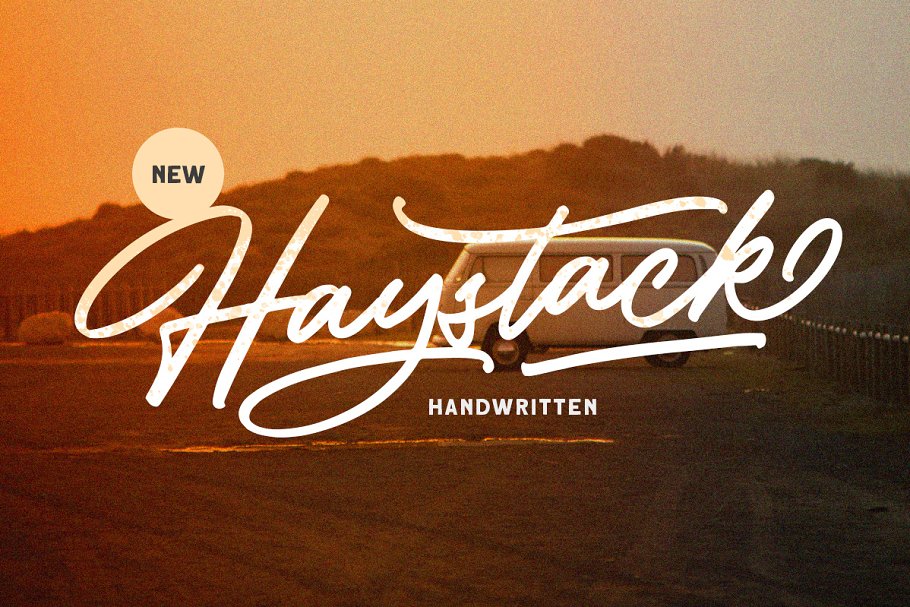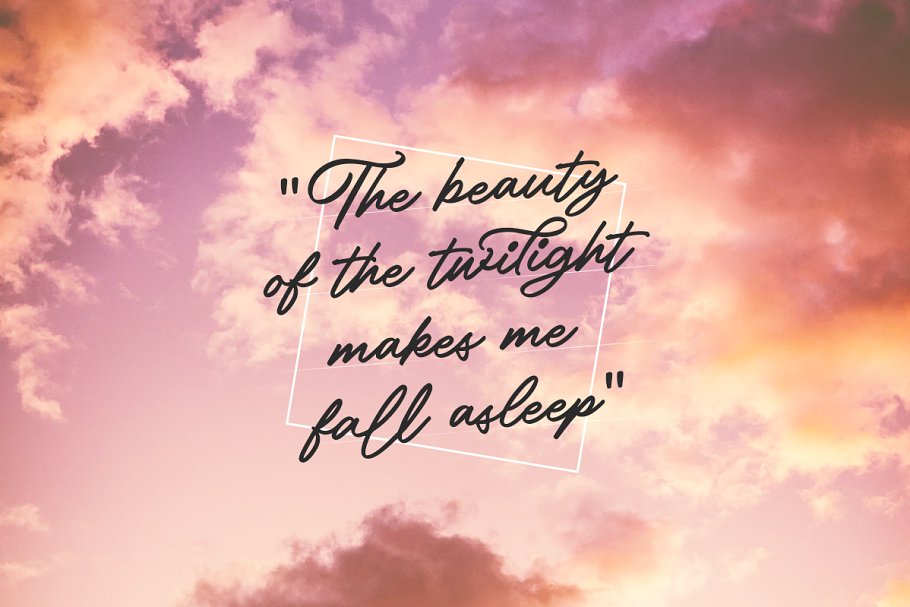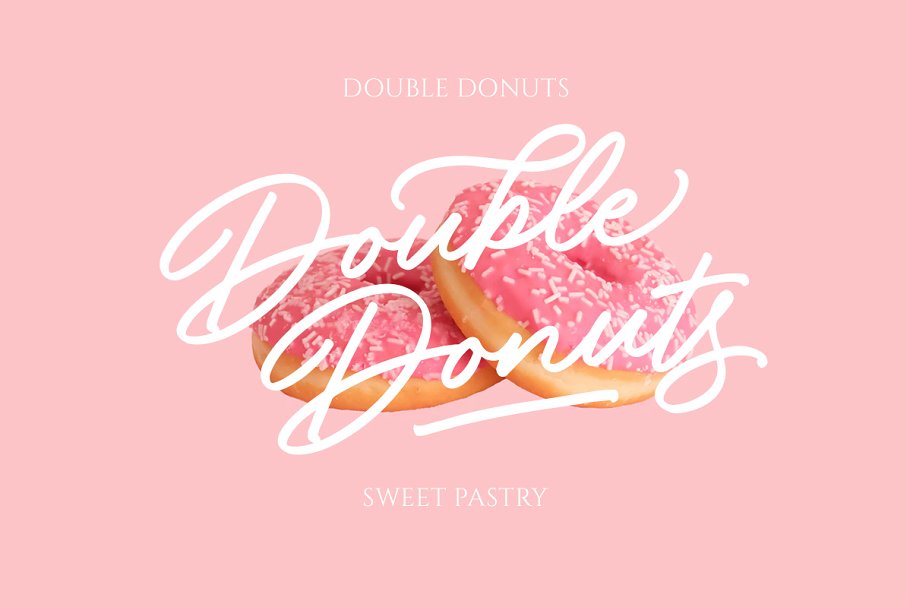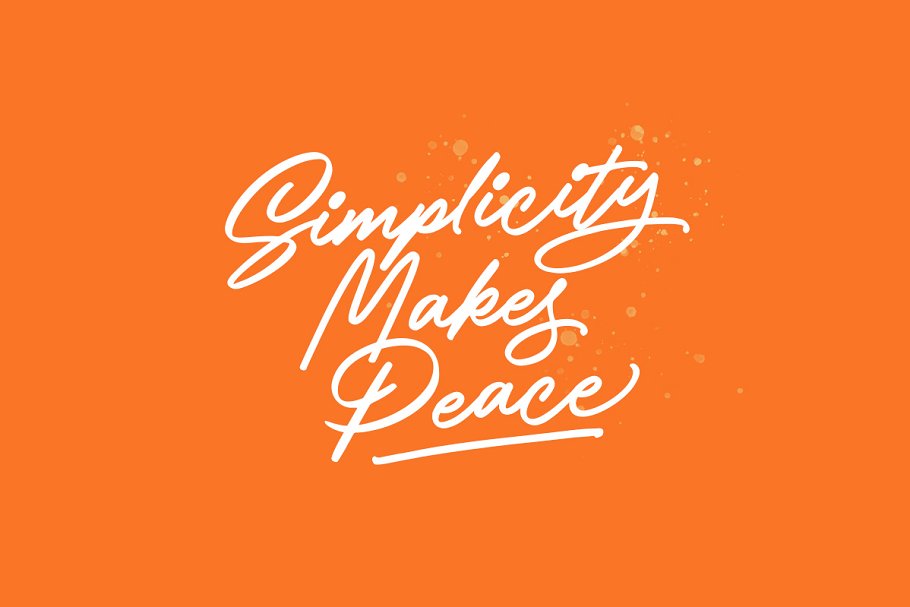
About the Haystack Handwritten Script
Haystack is a handwritten script with many , You can use also for headline or signature, This type of font perfectly made to be applied especially in logo, and the other various formal forms such as invitations, labels, logos, magazines, books, greeting / wedding cards, packaging, fashion, make up, stationery, novels, labels or any type of advertising purpose